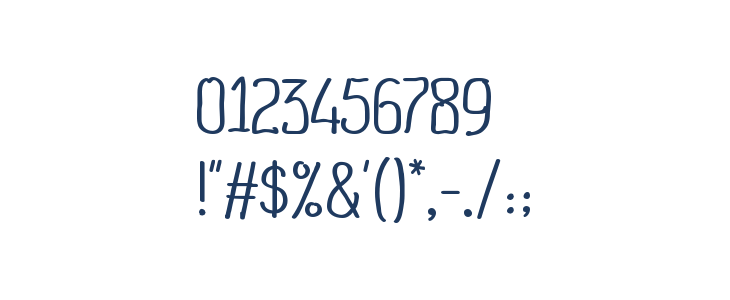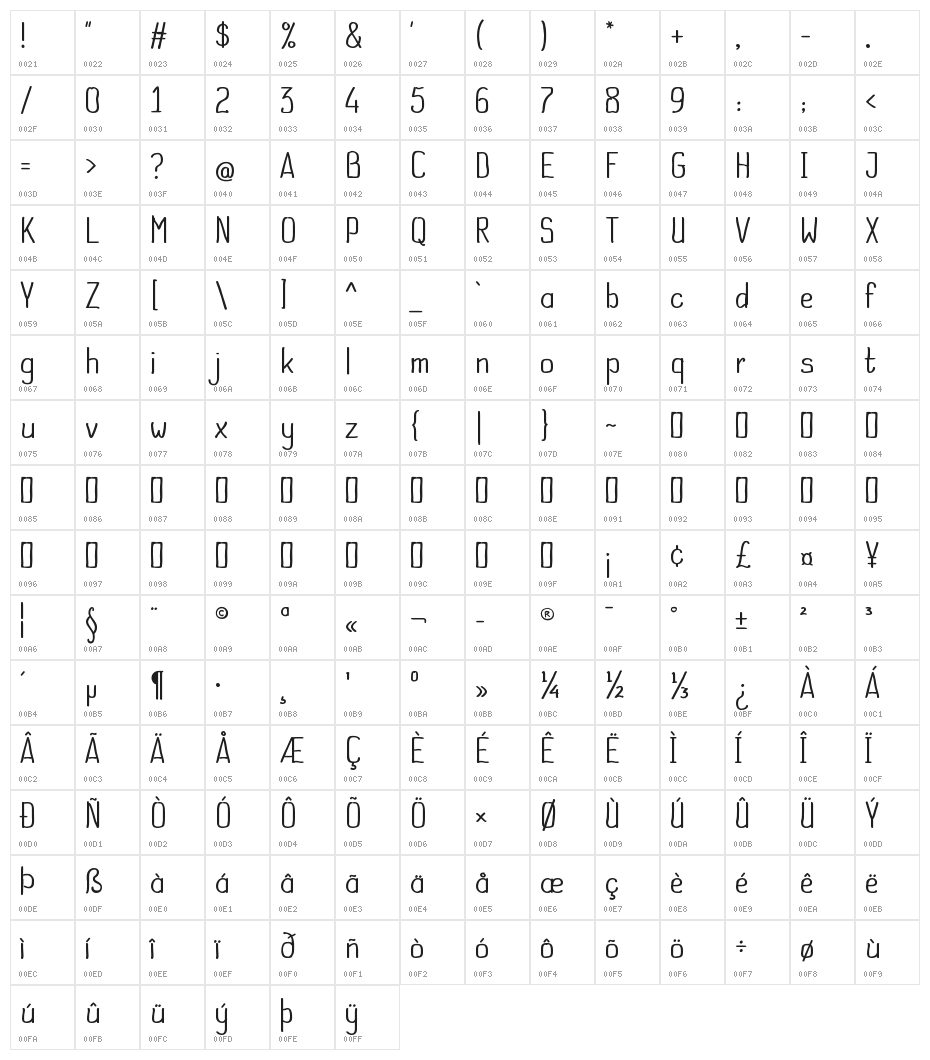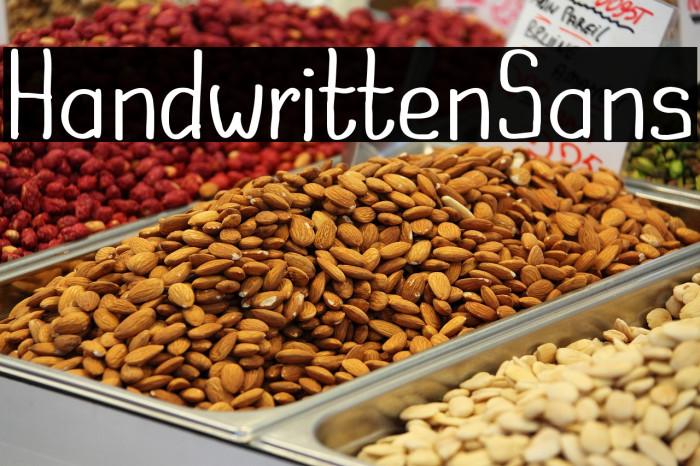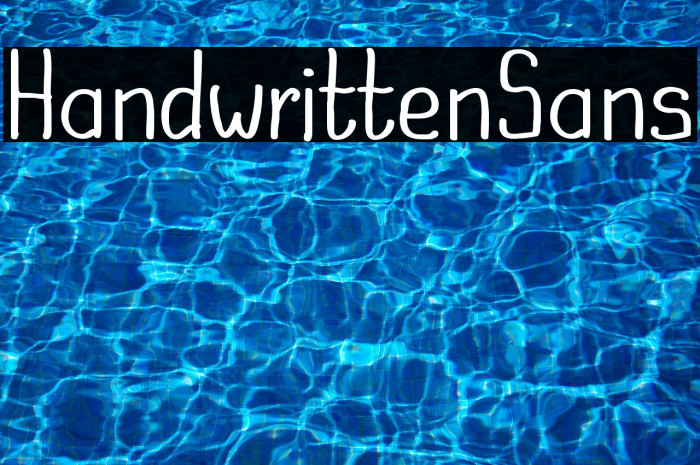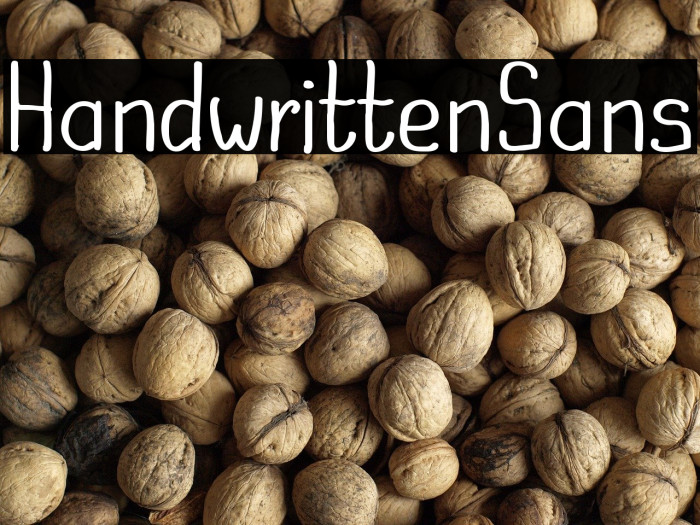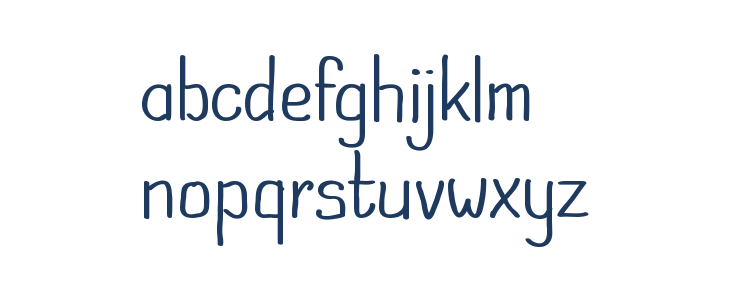
HandwrittenSans Font
HandwrittenSans Description
This font features a playful and casual handwritten style with a sans-serif structure. The letters are slightly irregular, giving it a personal and approachable feel. The strokes are consistent in width, providing a clean and modern look. The uppercase and lowercase letters maintain a uniform height, while the numerals and special characters are designed to complement the overall style. This font is versatile and can be used in various creative projects where a friendly and informal tone is desired.
| Overall Style | Casual |
| Use Case | Headlines, Informal text, Branding |
| Proposed Projects | Ideal for greeting cards, children's books, casual branding, and social media graphics. |